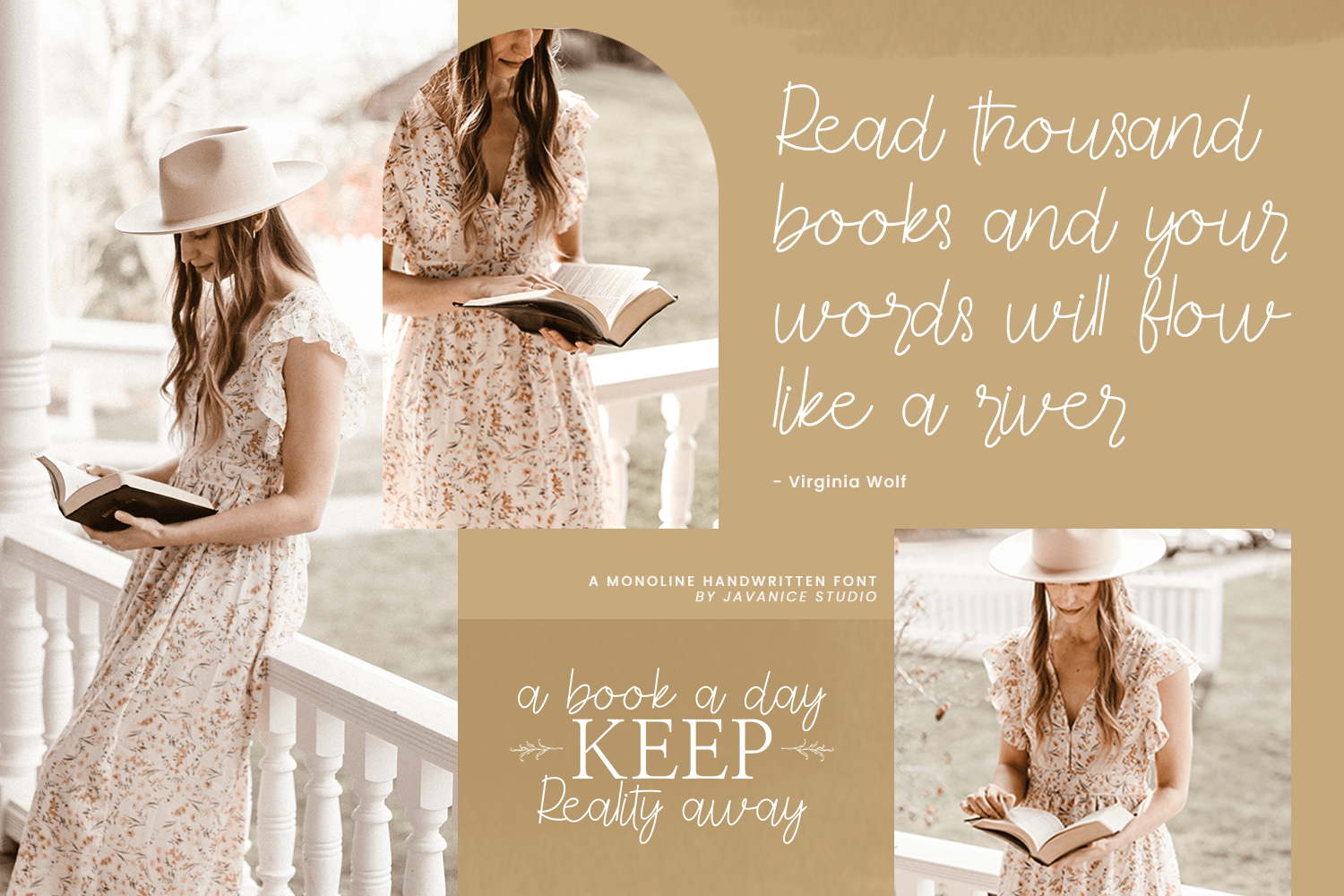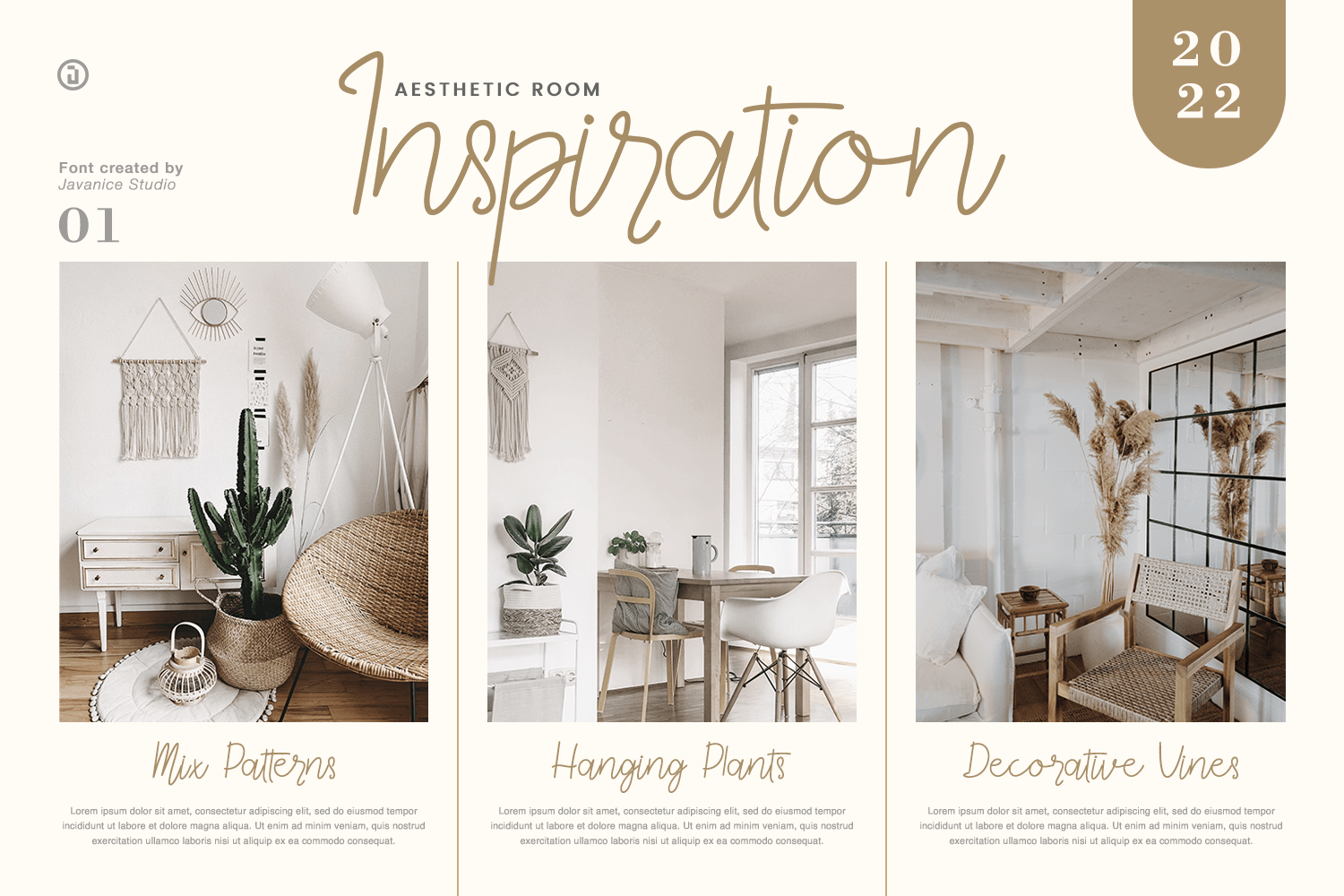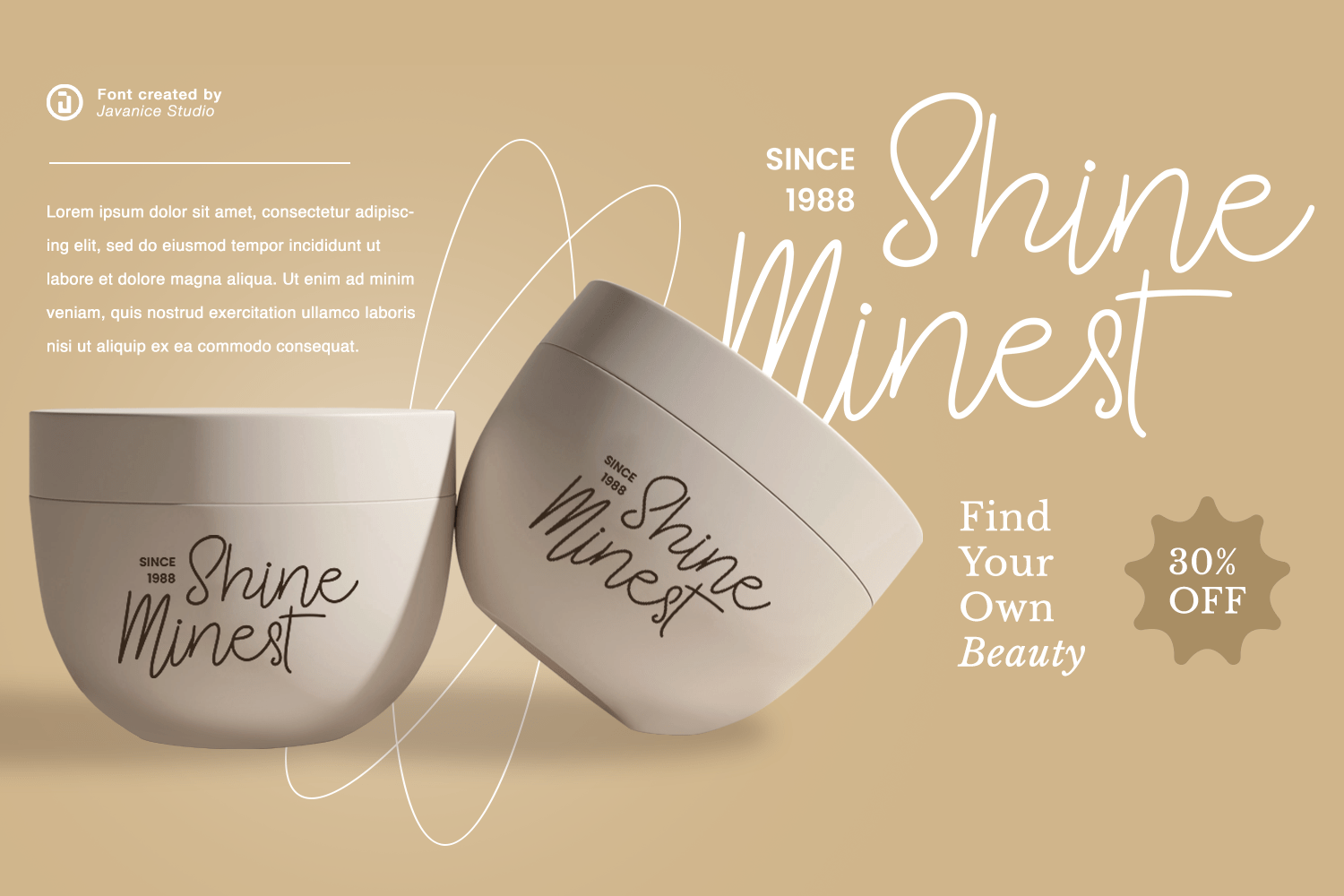
Marsha Stihnoy Font
Marsha Stihnoy Handwritten Font
This is a calligraphy font. Marsha Stihnoy is perfect for branding project, apparel, labels, magazines, books, greeting / wedding cards, packaging, fashion, make up, stationery, and any type of advertising purpose or just used to express words above the background.